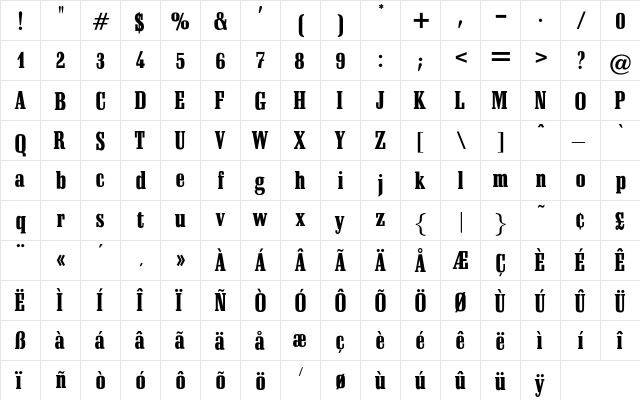
Gustav Regular
Design Context for Gustav Typeface
Gustav offers clean, dependable letterforms without strong stylistic allegiance, making it a practical choice for designers who need flexibility.
Pro Tip: Use Gustav in both headline and body roles to test its range before committing to a single application.